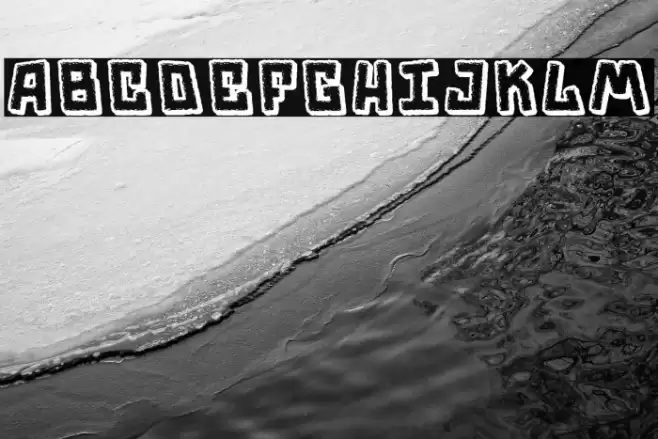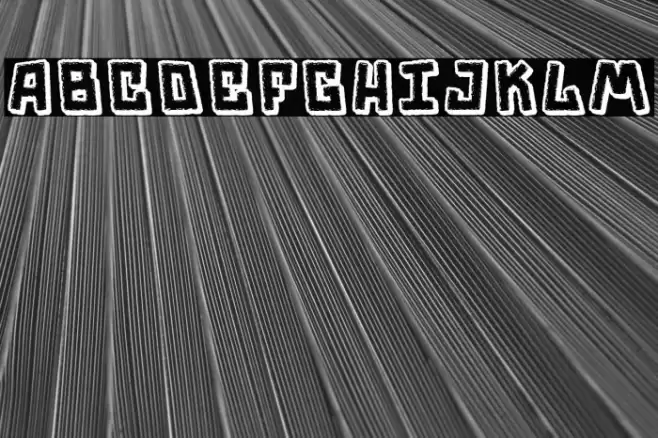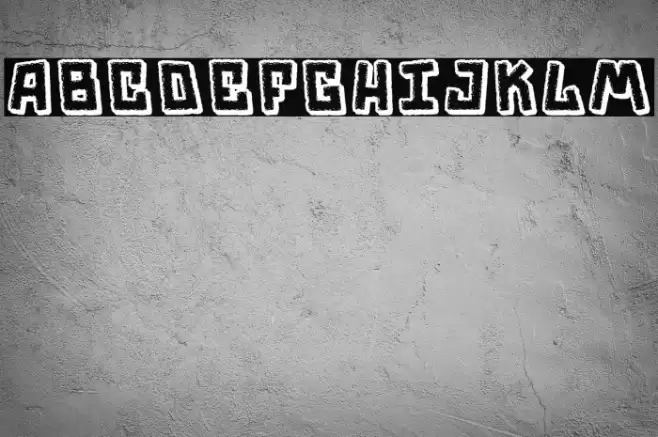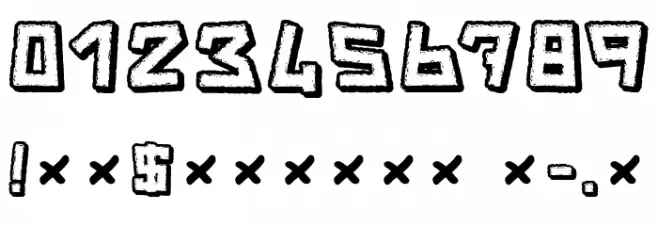
Trouble Font
Trouble Description
This font features a bold, playful style with a hand-drawn appearance, characterized by thick, uneven strokes and a slightly rough texture. The letters are uppercase and lowercase, with a consistent width and a slightly condensed form. The numbers follow the same style, maintaining the playful and informal aesthetic. Special characters are included, matching the overall design. The font has a cartoonish, fun vibe, making it suitable for creative and informal projects. Its unique style stands out, making it ideal for attention-grabbing designs.
A bold, playful, hand-drawn font with a cartoonish style from Uncategorized fonts.
- Font: Trouble
- Proposed Projects: Ideal for children's books, comic strips, playful branding, and creative posters.
- Overall Style: Playful, Cartoonish
- Use Case: Headlines, Posters, Branding